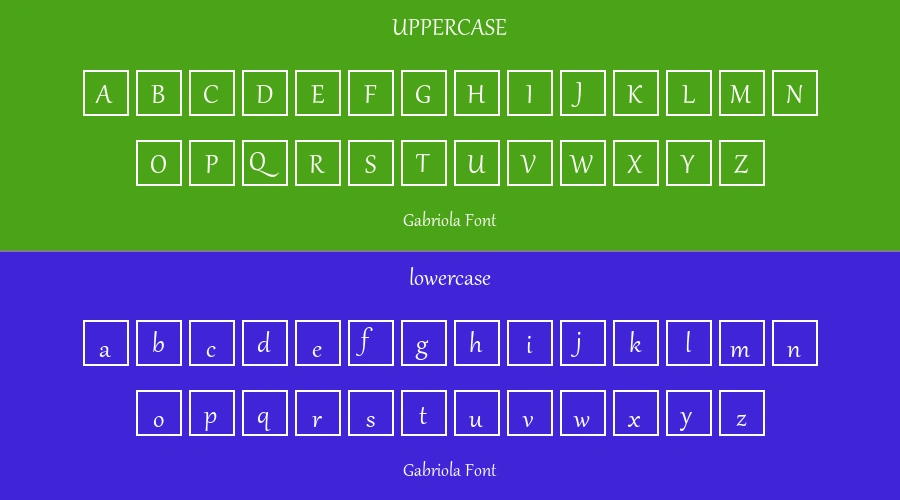
About Gabriola Font
Gabriola Font embodies typographic excellence through its masterful combination of structural clarity and distinctiveness. Created for corporate communications, this typeface delivers exceptional longevity and aesthetic excellence across all applications. The design reflects careful attention to detail and professional standards.
Advanced capabilities include distinctive graceful serifs and versatile case-sensitive forms, giving designers creative control. When used in digital platforms, Gabriola Font exhibits remarkable hinting quality. The harmonious balance between ear formation and brand personality sets this typeface apart.